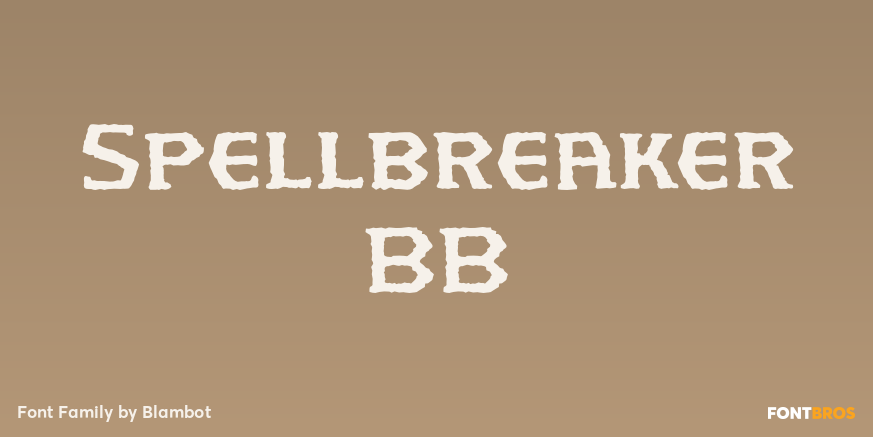
HomeFont BrosHandwrittenSpellbreaker BB HandwrittenHistorical Spellbreaker BB FacebookXPinterestWhatsApp 1 of 1 About Spellbreaker BB SPELLBREAKER BB is a distressed fantasy font in two styles, Regular and Deco. Open your spell book, grab your Staff of Firebolts, and get ready to face those pesky dragons!  DOWNLOAD ON FONT BROSThis font is sold and delivered by Font Bros. Font Canyon may earn a commission if you buy through this link. People also explored Riverbank Font Sometimes Font Match Font Christmas Forest Font Swoosh Handwriting Font Alpukato Font Castle Cerwyn Font Heather Navy Bella Canvas 3005 Mockup Stephinest Font 450 0 TagsSpellbreaker BB Font Previous articleMoneybatsNext articleGraffiti Classic LEAVE A REPLY Cancel reply Comment: Please enter your comment! Name:* Please enter your name here Email:* You have entered an incorrect email address! Please enter your email address here Website: Save my name, email, and website in this browser for the next time I comment. Personal Use Free Party Pooper Personal Use Free Read more about this font Colombia Personal Use Free Read more about this font Mika Personal Use Free Read more about this font England Personal Use Free Read more about this font BLOG Using Fonts in Digital Marketing: Tips to Strengthen Your Brand Identity In the realm of digital marketing, every visual element plays a crucial role in shaping a brand's identity, and fonts are no exception. The... Modern Sans-Serif Fonts That Brands Love in 2025 Transform Your Website: Elevate Your Typography with 7 Best Web Font Generators 5 Fonts That Will Dominate Design Trends in 2026